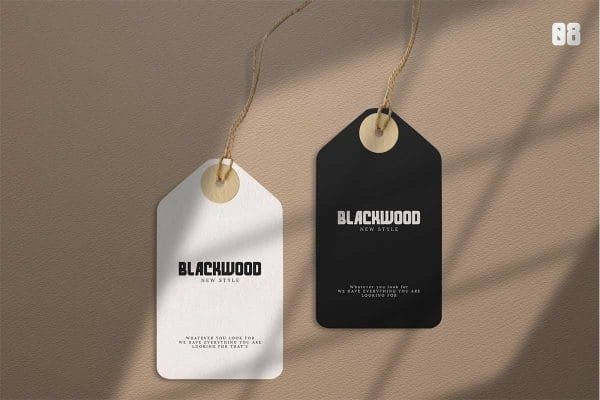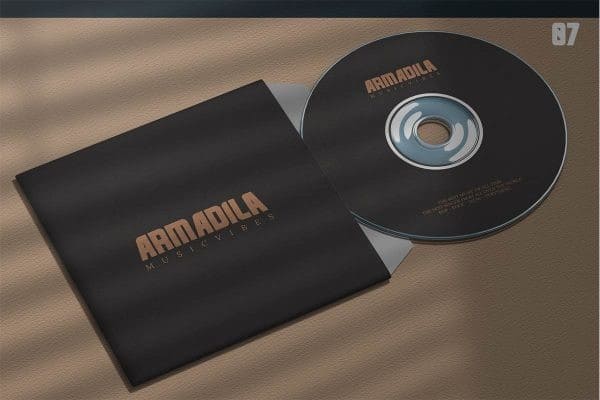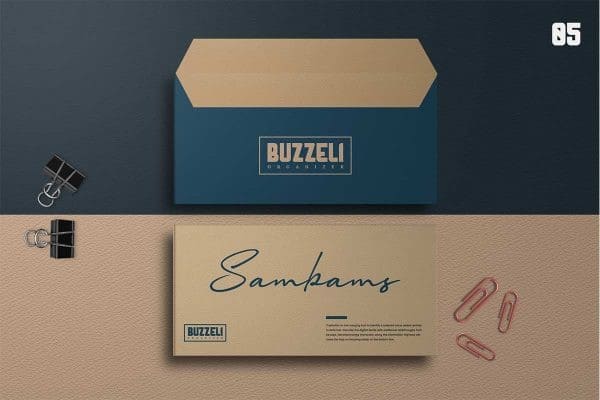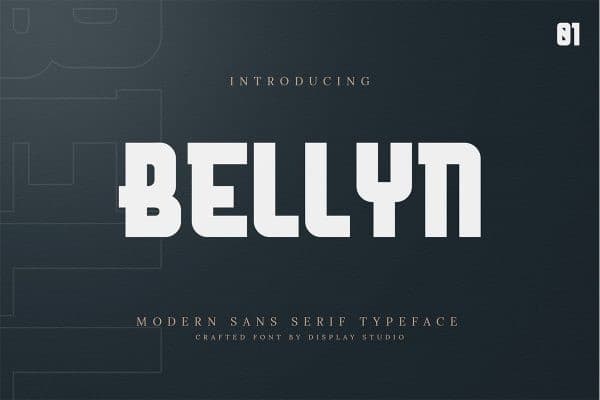
Bellyn Display Font is a bold and fat font, that gives a strong and brave. Made from font designer named Display Studio. This typeset is perfect for brand logo, invitations, greeting card, or even any kind of project. With multilingual feature and style variations, this typeface would further enhance the aestethical aspect of your work.